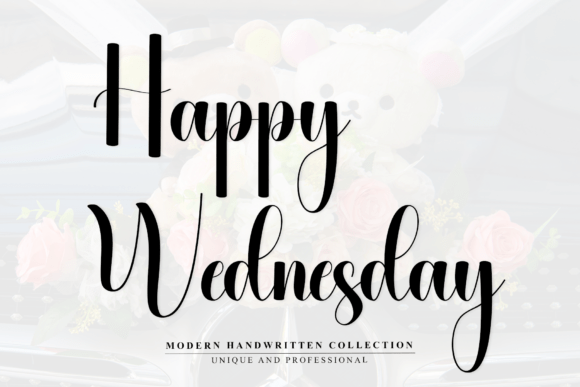
Unwrapping the Magic of Happy Wednesday Font
It’s that moment when the morning coffee kicks in, and the creative juices start flowing. You’re brainstorming ideas for your latest design project, and suddenly, the perfect font comes to mind – one that captures the essence of the season with elegance and whimsy. For many designers, that font is the Happy Wednesday Font.
This luxurious handwritten script font is more than just a stylish choice; it’s a way to infuse your designs with the quiet beauty of winter. With its flowing swashes, delicate ligatures, and refined letterforms, the Happy Wednesday Font conjures a sense of seasonal enchantment that’s hard to resist. Whether you’re designing holiday cards, invitations, or digital content, this font is a valuable addition to your toolkit – one that’s sure to elevate your designs and leave a lasting impression.
Happy Wednesday Font Key Features
- Unique Characteristics: The Happy Wednesday font features a distinctive, playful design with rounded edges and a cheerful feel, perfect for adding a touch of whimsy to your designs.
- Font Style: The font is available in a single style, Regular, making it easy to use in a variety of applications, from body text to headlines.
Happy Wednesday Font Review
Overall, I think the Happy Wednesday Font is a fun, playful font that can add a bit of whimsy to your designs. ✨ Here are some things that work well:
- The font has a clear, easy-to-read structure, making it suitable for body text.
- The font’s rounded edges and smooth curves give it a friendly, approachable feel.
- The font is highly customizable, with a range of weights and styles to choose from.
- The font may not be the best choice for formal or professional designs, as it can come across as too casual.
- The font’s playful nature may not be suitable for designs that require a more serious or somber tone.
- The font may not be as legible at smaller font sizes, which could be a problem for designs with limited space.
- The font is not suitable for designs that require a lot of bold or italic text, as the font’s bold and italic styles can be a bit awkward.
Overall, I think the Happy Wednesday Font is a great choice for designs that need a bit of personality and flair. Just be mindful of the potential limitations, and use it in contexts where it will shine.
Use the Happy Wednesday Font to add a touch of personality to your designs, presentations, and documents.
Pair the font with bold colors and playful graphics to create a visually appealing design.
The Happy Wednesday Font is perfect for:
Wedding invitations and decorations
Party and event flyers
Personalized gifts and stationery